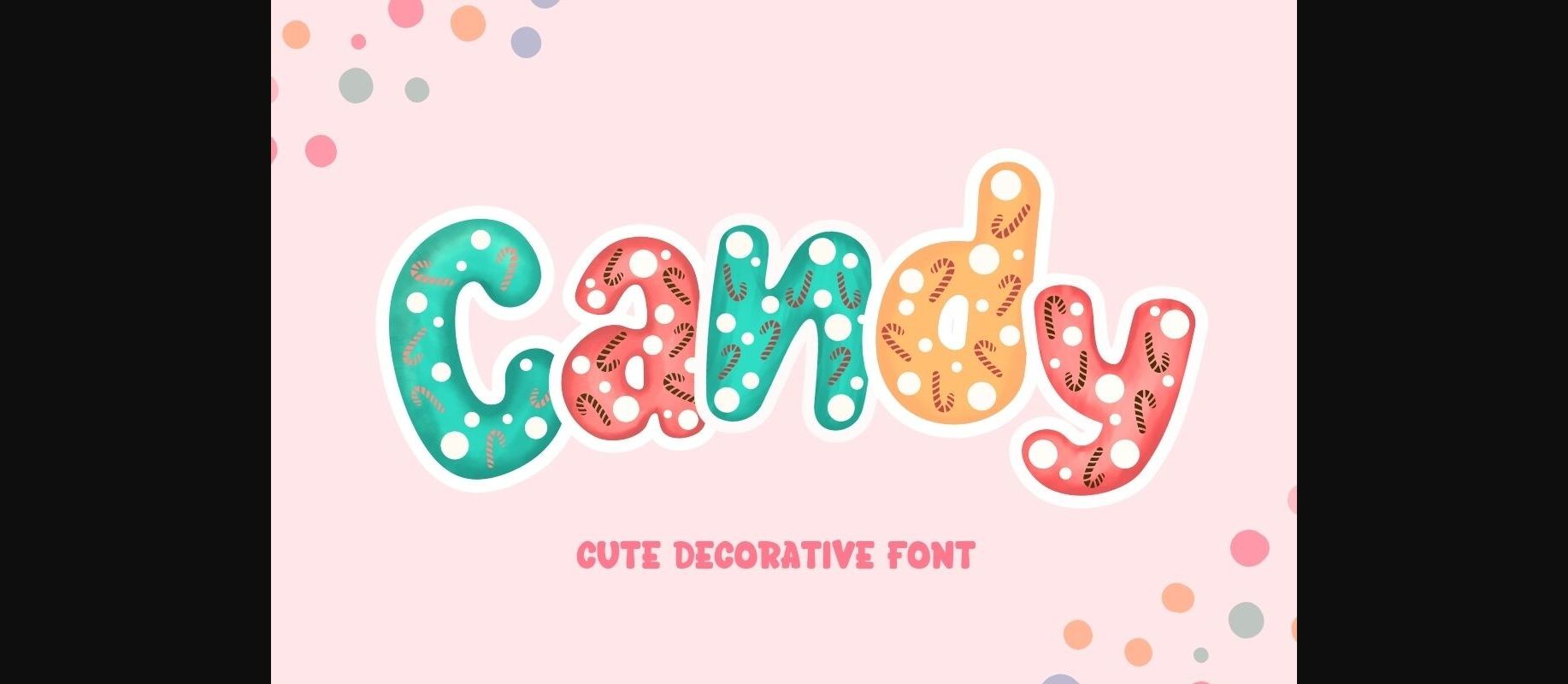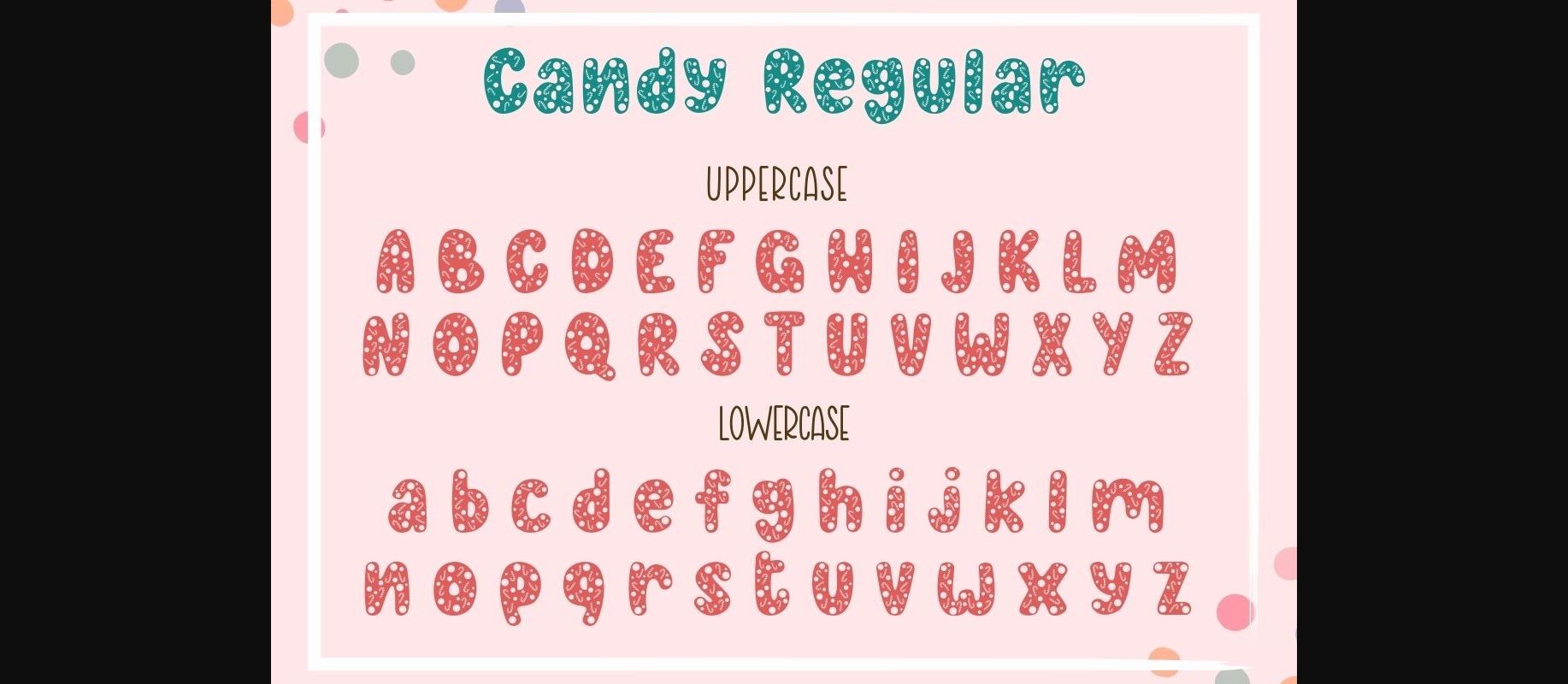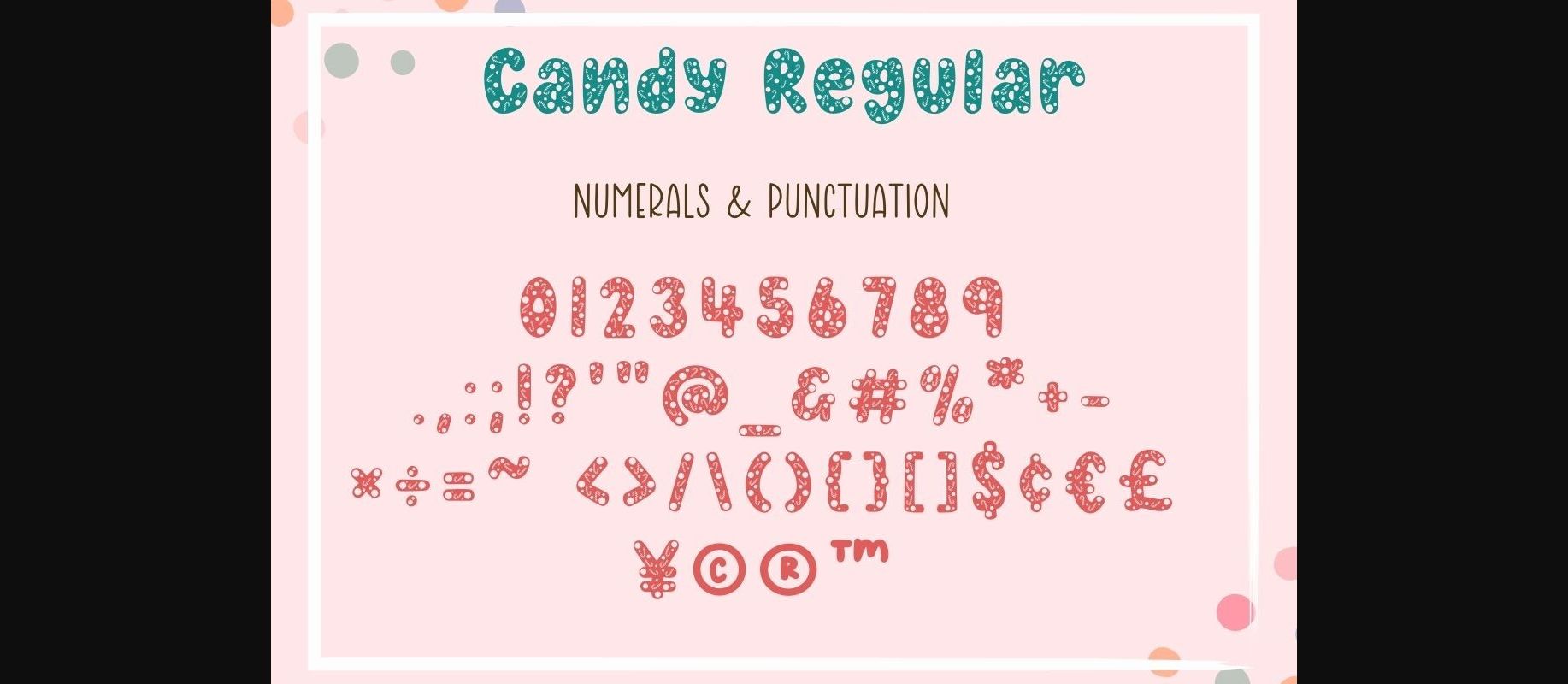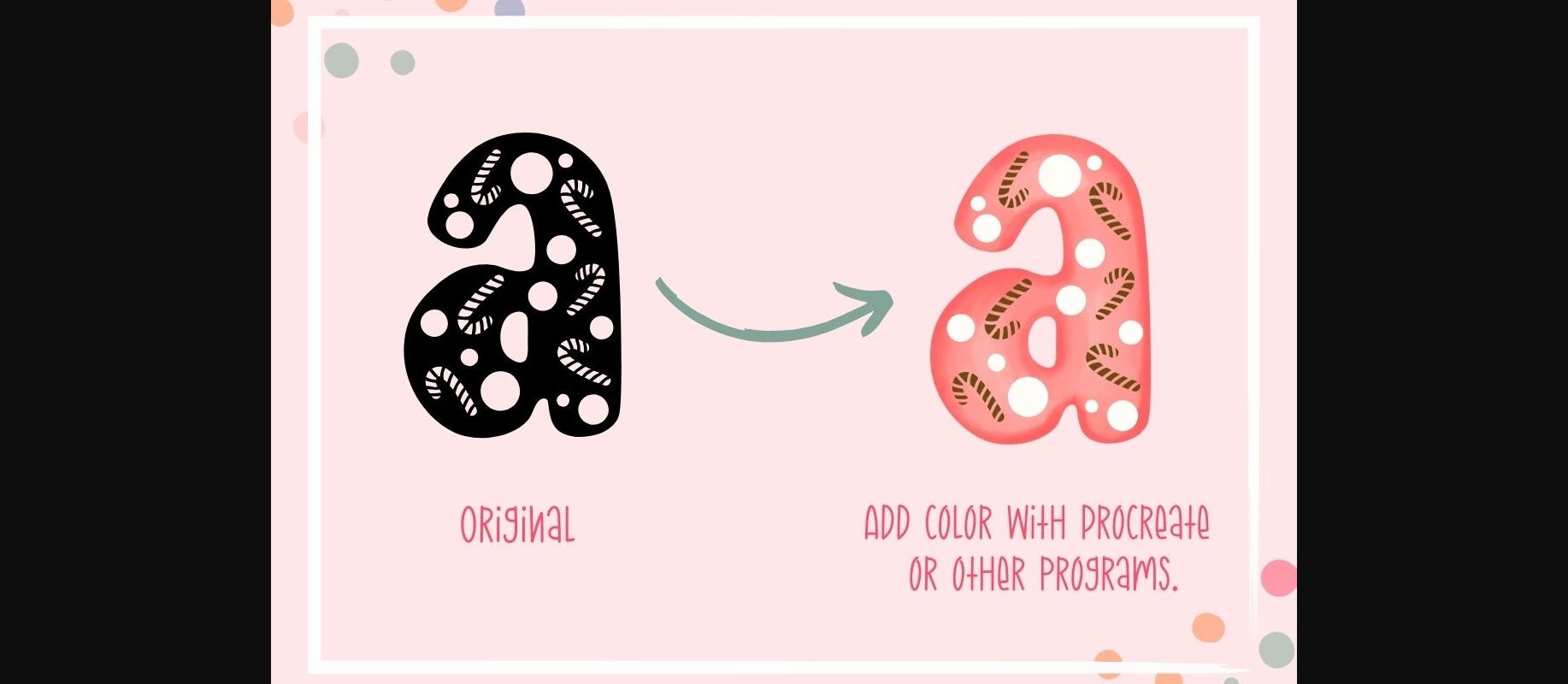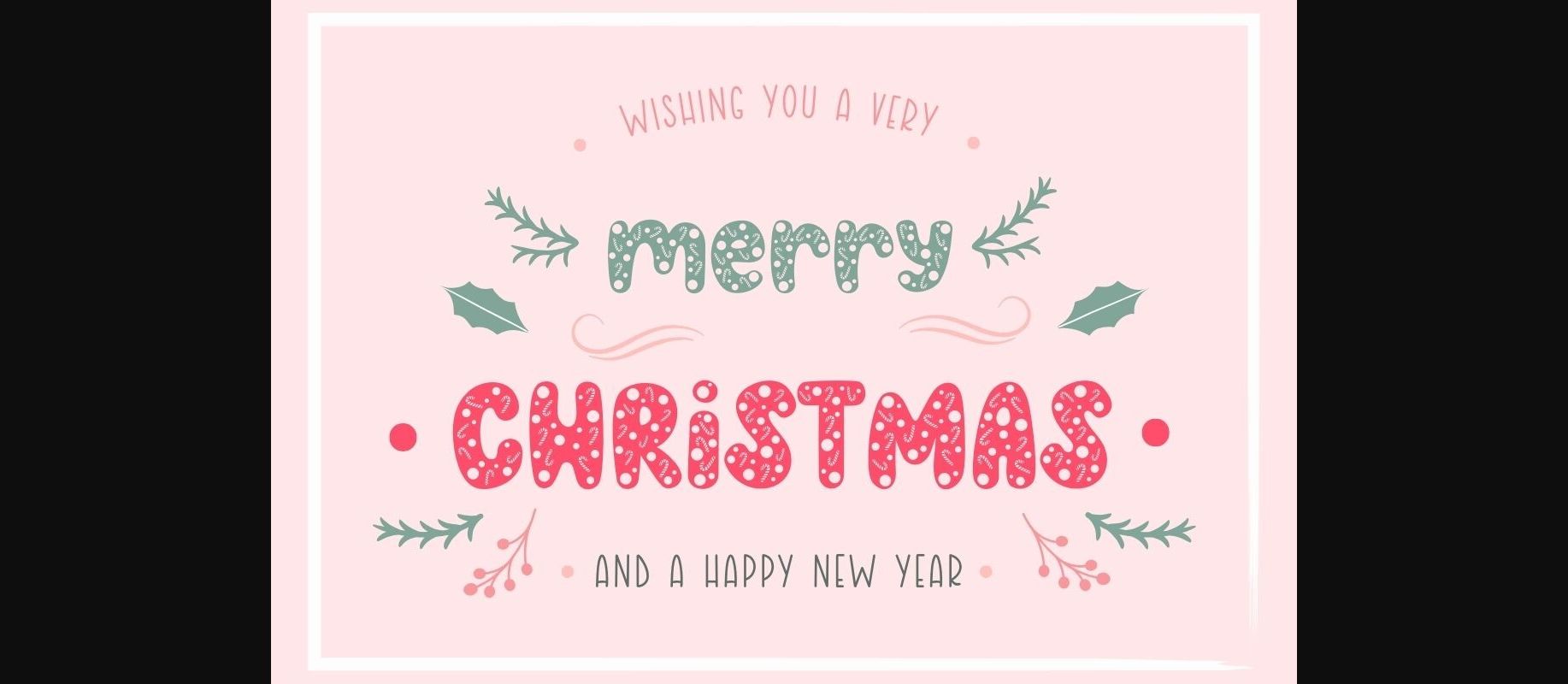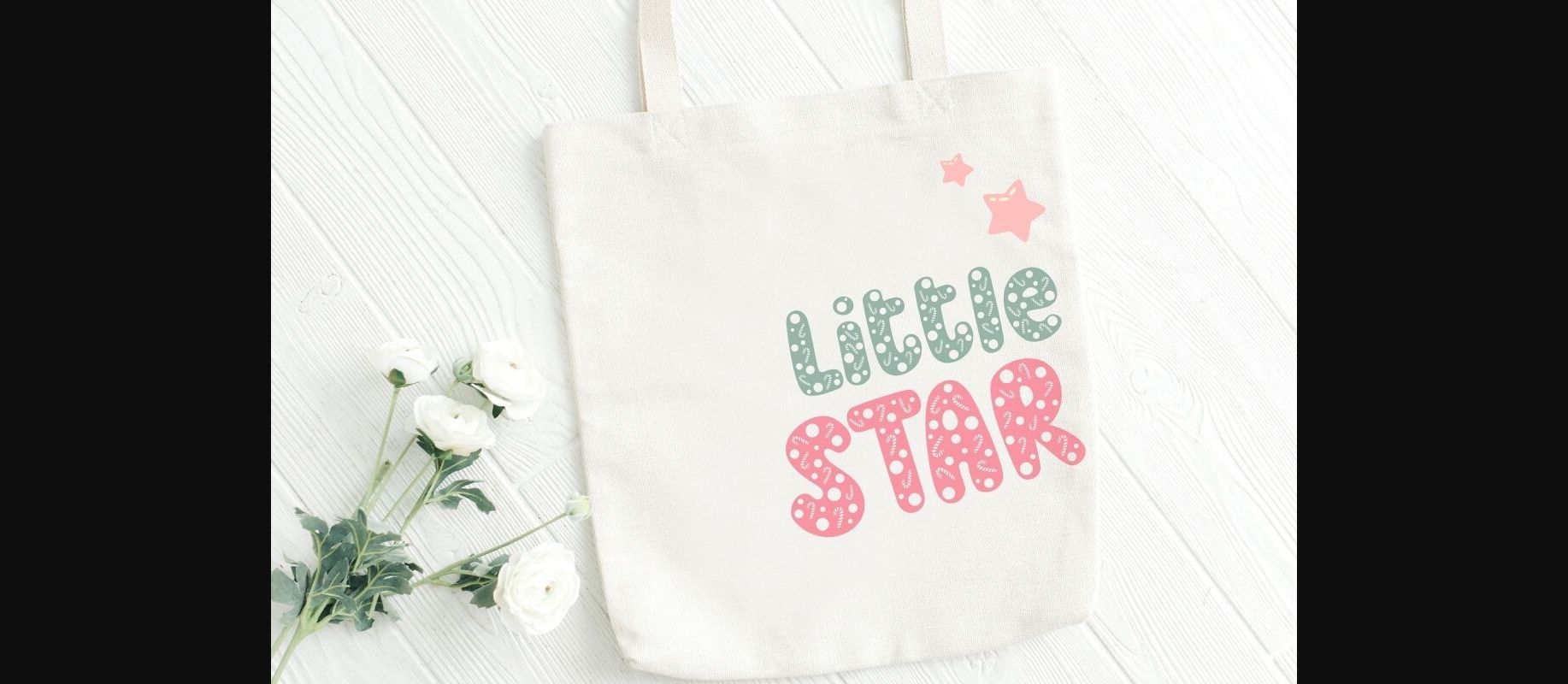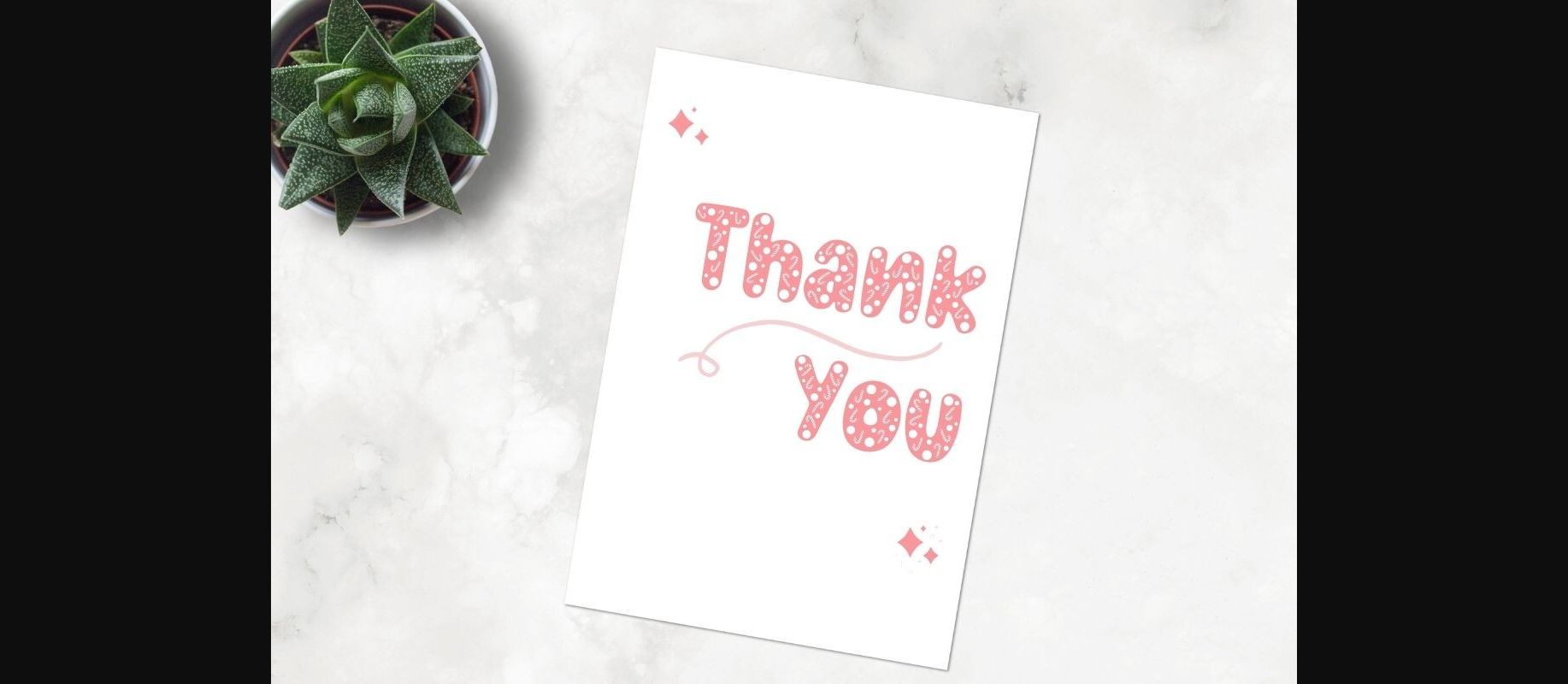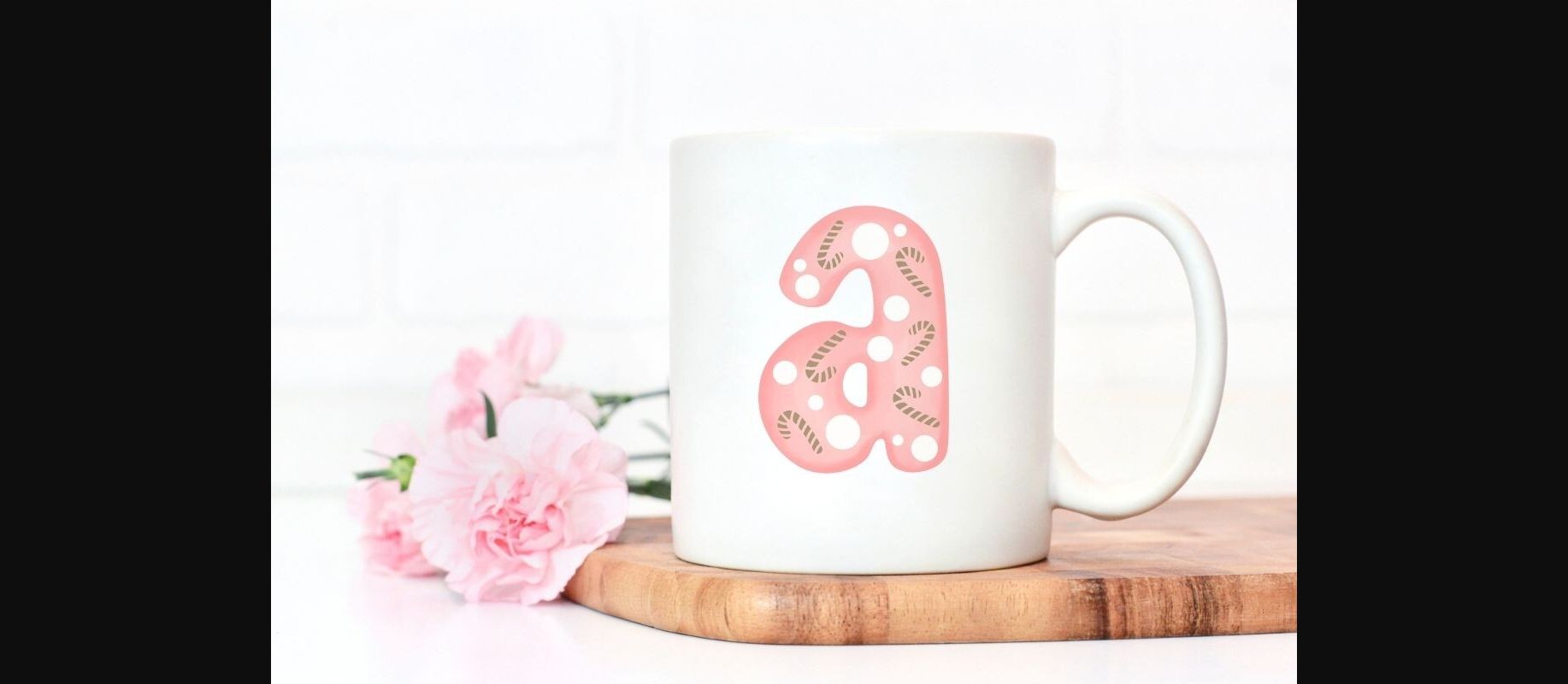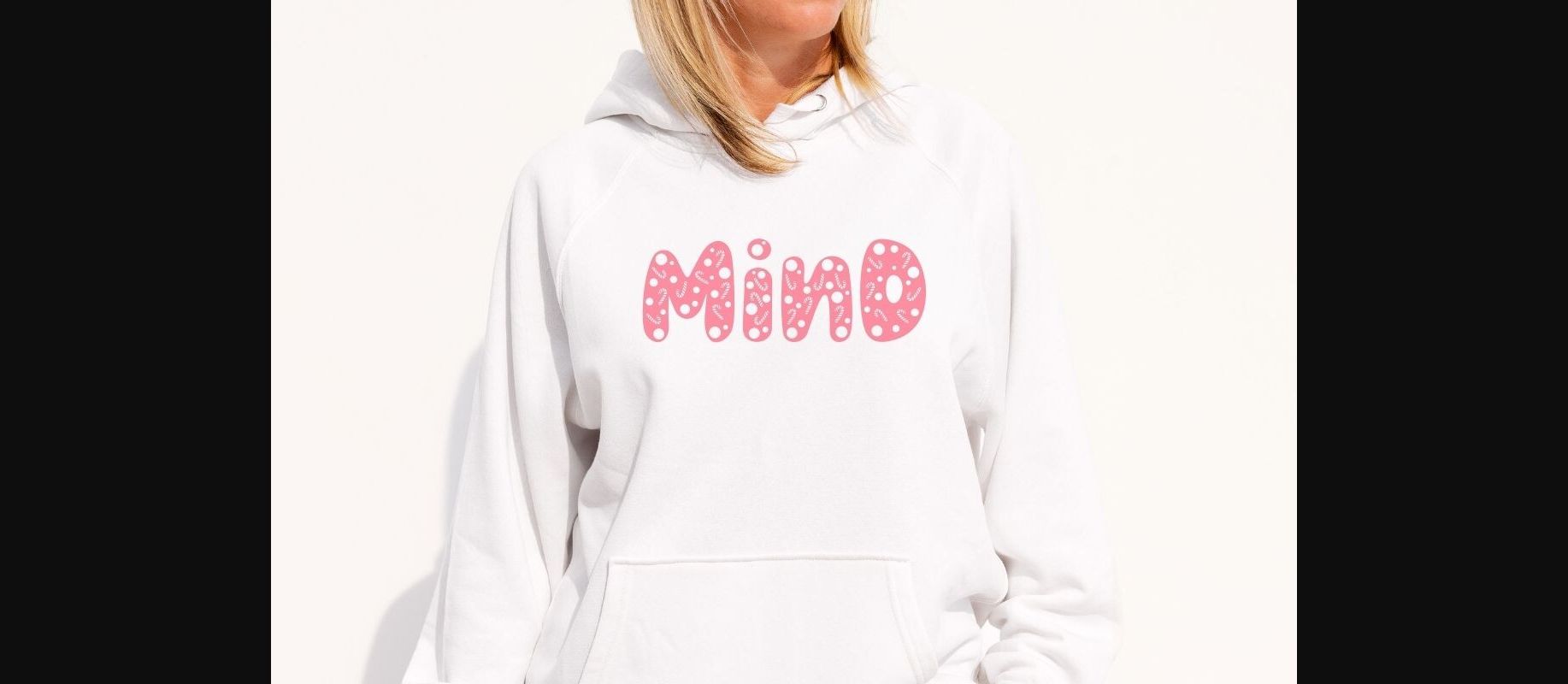
Candy Font
About Candy Font
Candy is a cute decorative font. This font is a combination of handwriting fonts and Christmas candy elements, giving it a unique and interesting look. You can use it to make your work look more unique. Perfect for creating a wide variety of new designs to match products such as banners, content, mugs, cards, shirts, stationery, social media posts, and more.